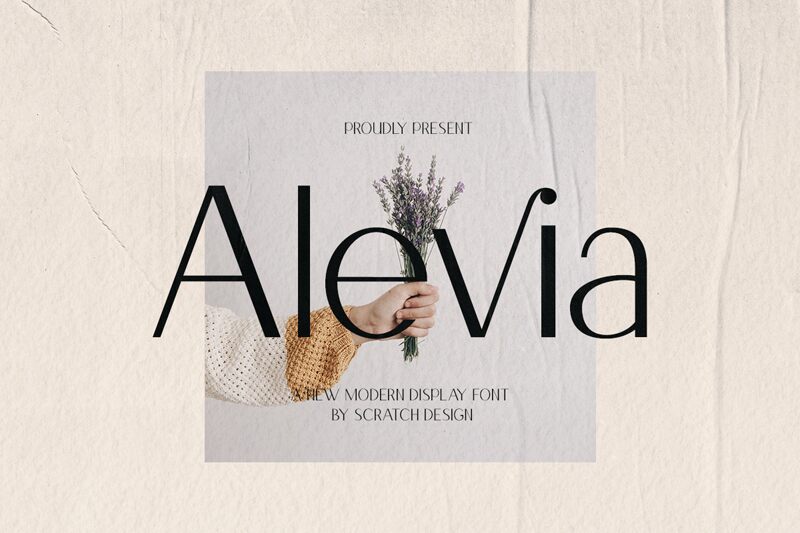
Alevia font is designed by Scratch Design, and it is a modern, clean serif generator of sophistication. This free serif font beautifully outlines a combination of traditional, modern stylishness, and upscale delicacy. Even in high-end projects this typeface can fit seamlessly with its simple yet powerful visual identity potential. An approachable yet professional elevation to your work is the promise.
If you are interested in seeing how this lovely font contributes to your project appearance, take your pick! Use Alevia for branding projects including logos and business cards. Use it for magazines layout headings and body texts; for advertising designs or marketplace presentations; on product packaging; editorial layouts like newsletters; educational books covers/presentations interiors alike size variations throughout issues publication consistency – possibilities await!